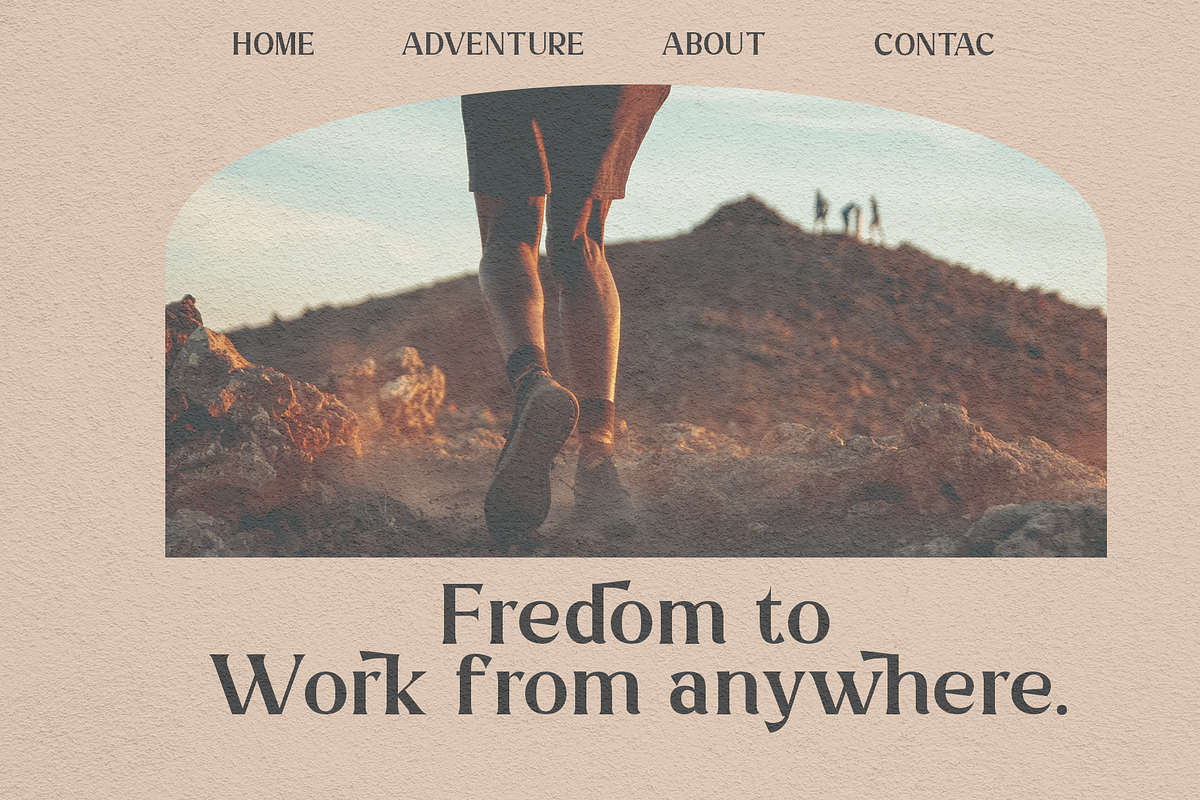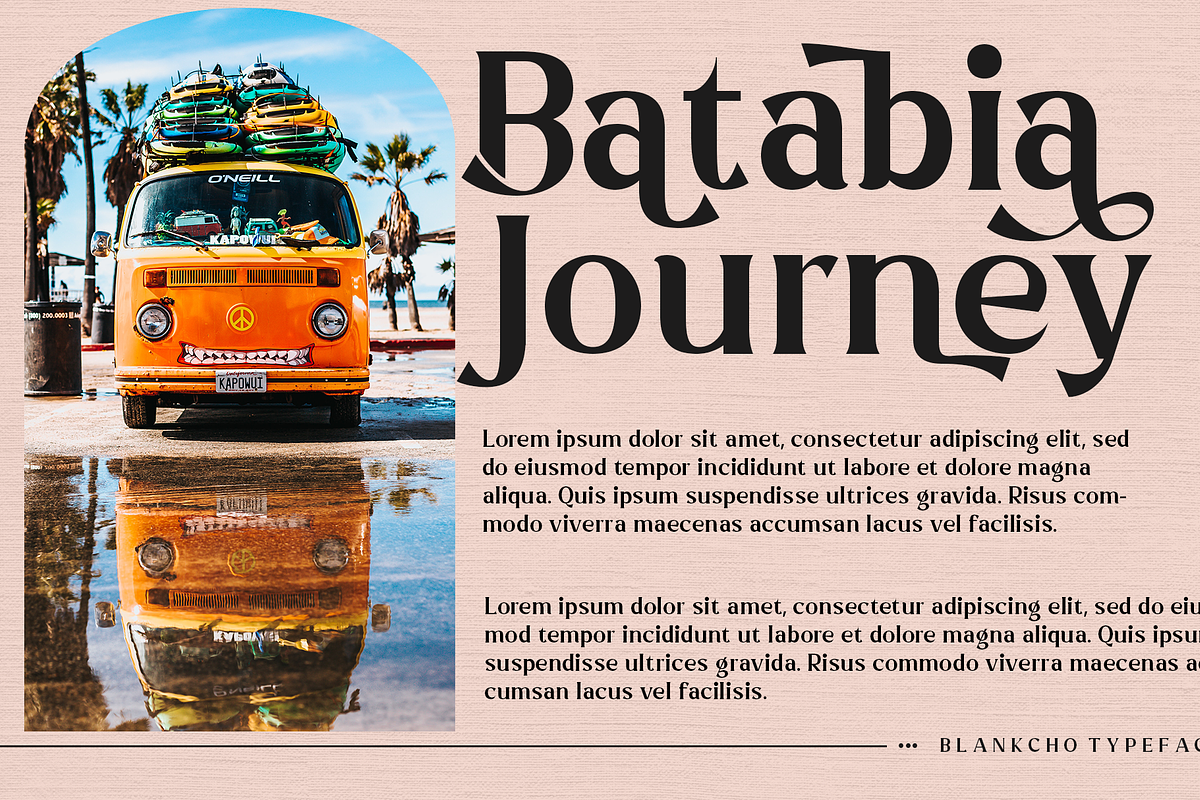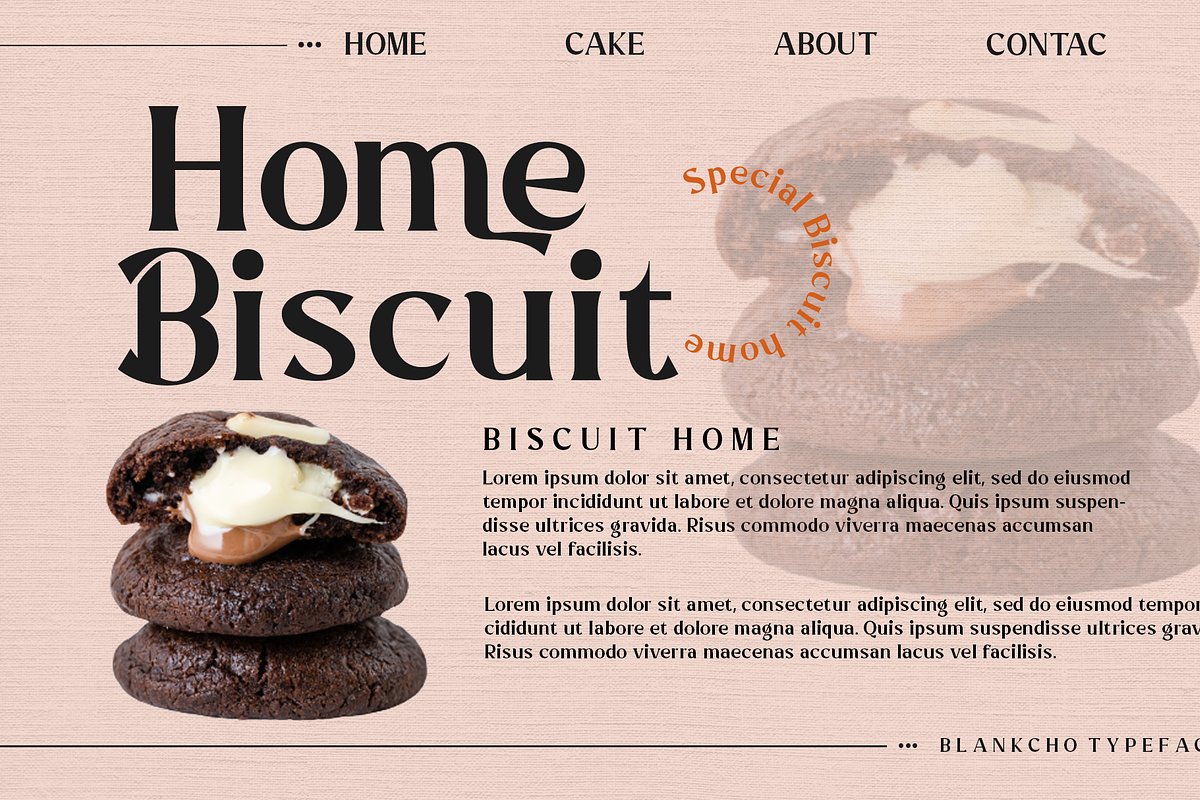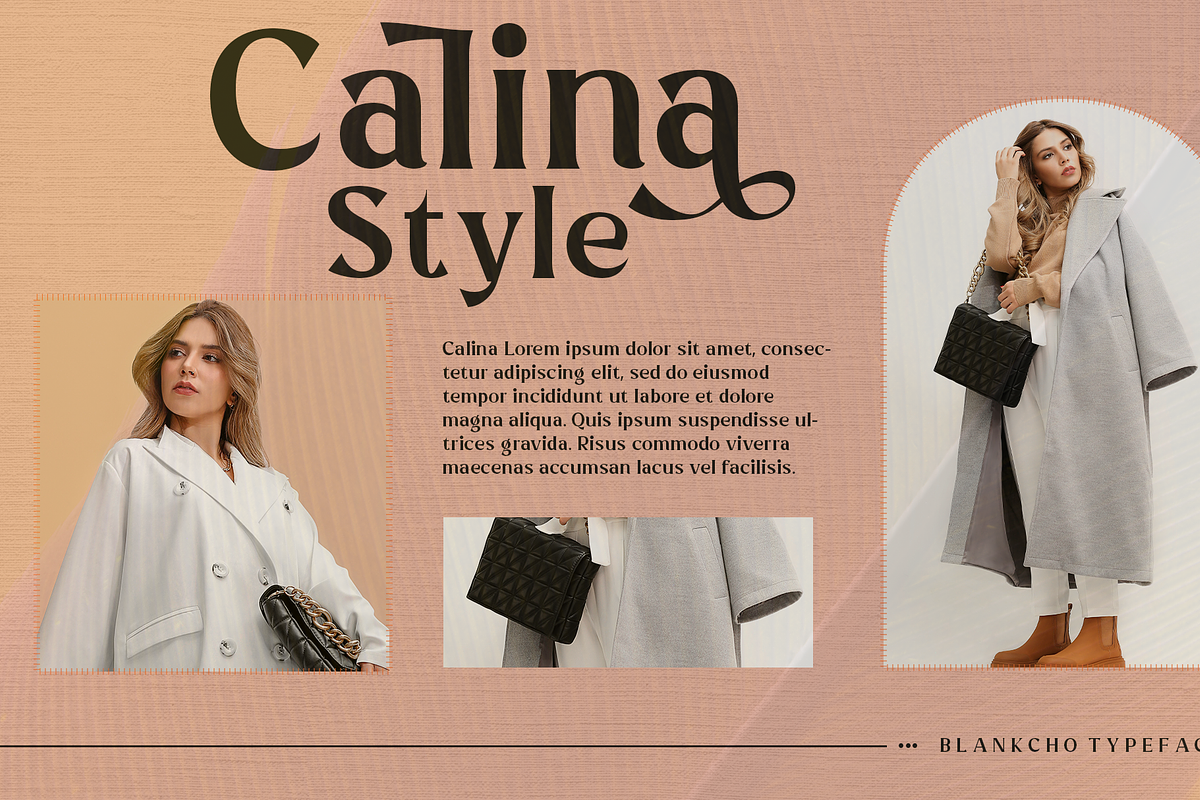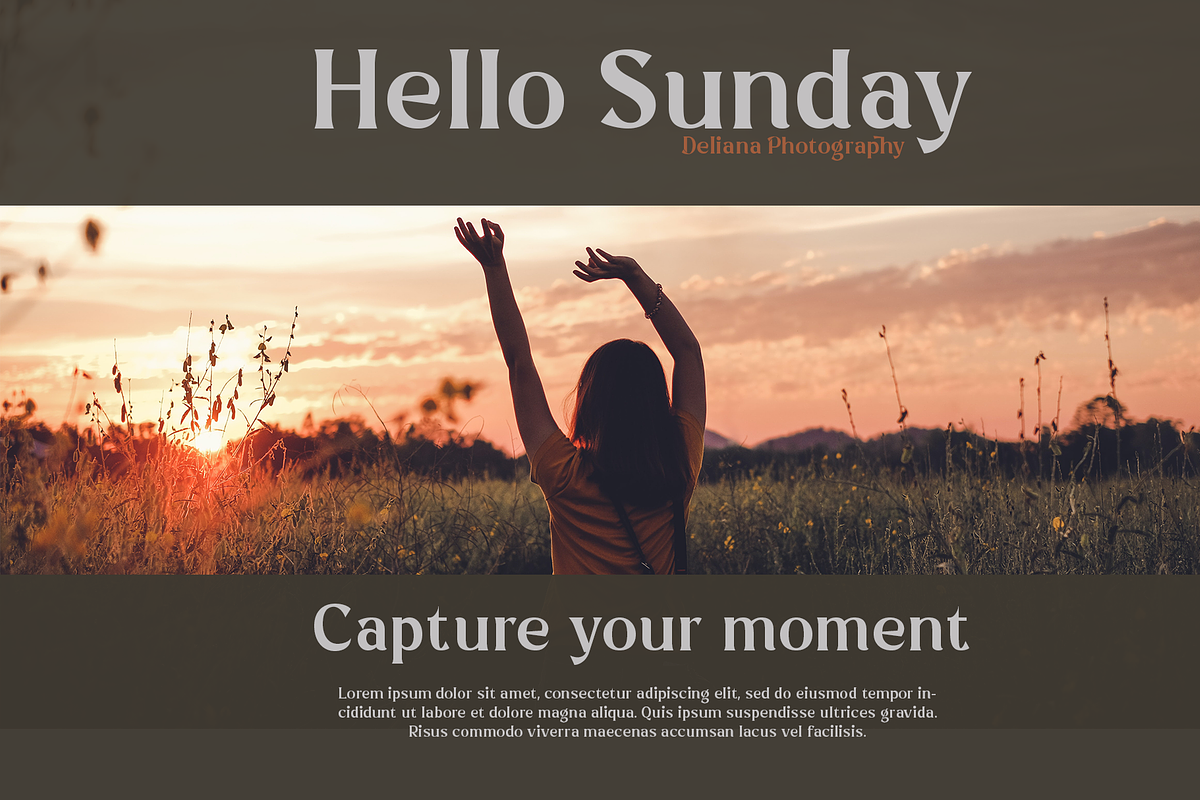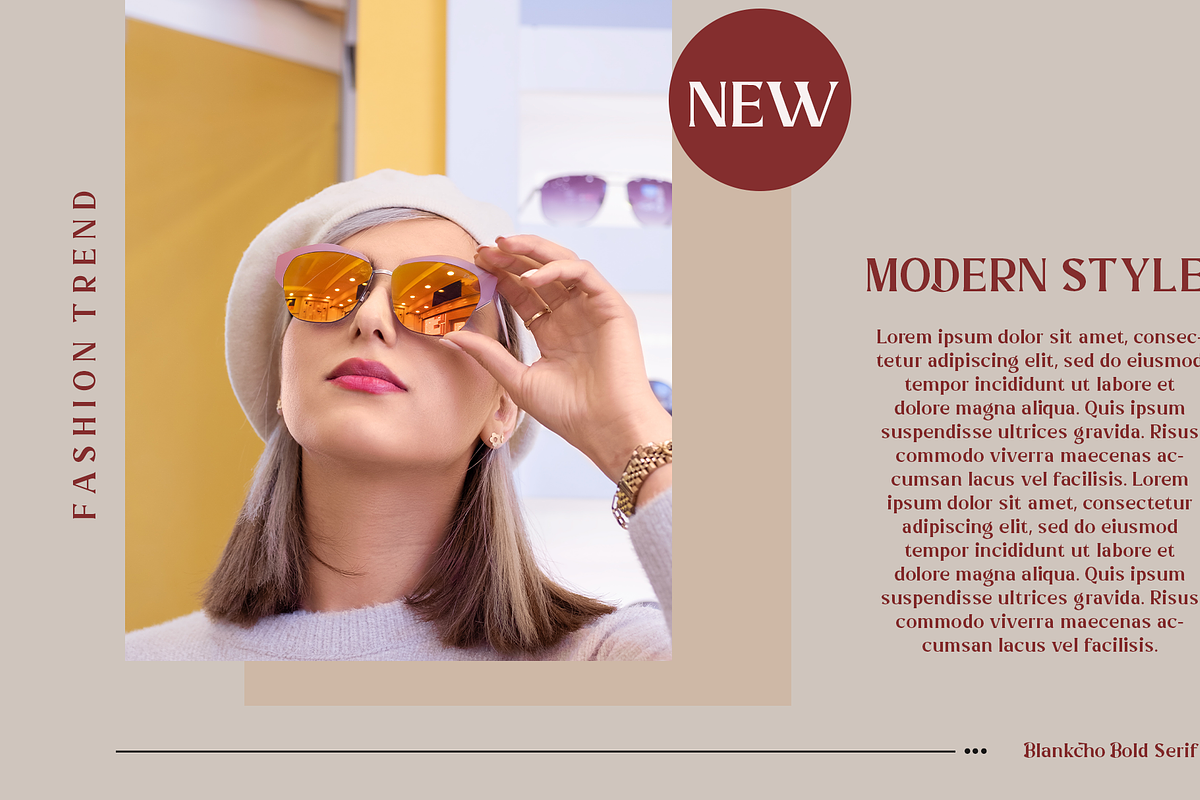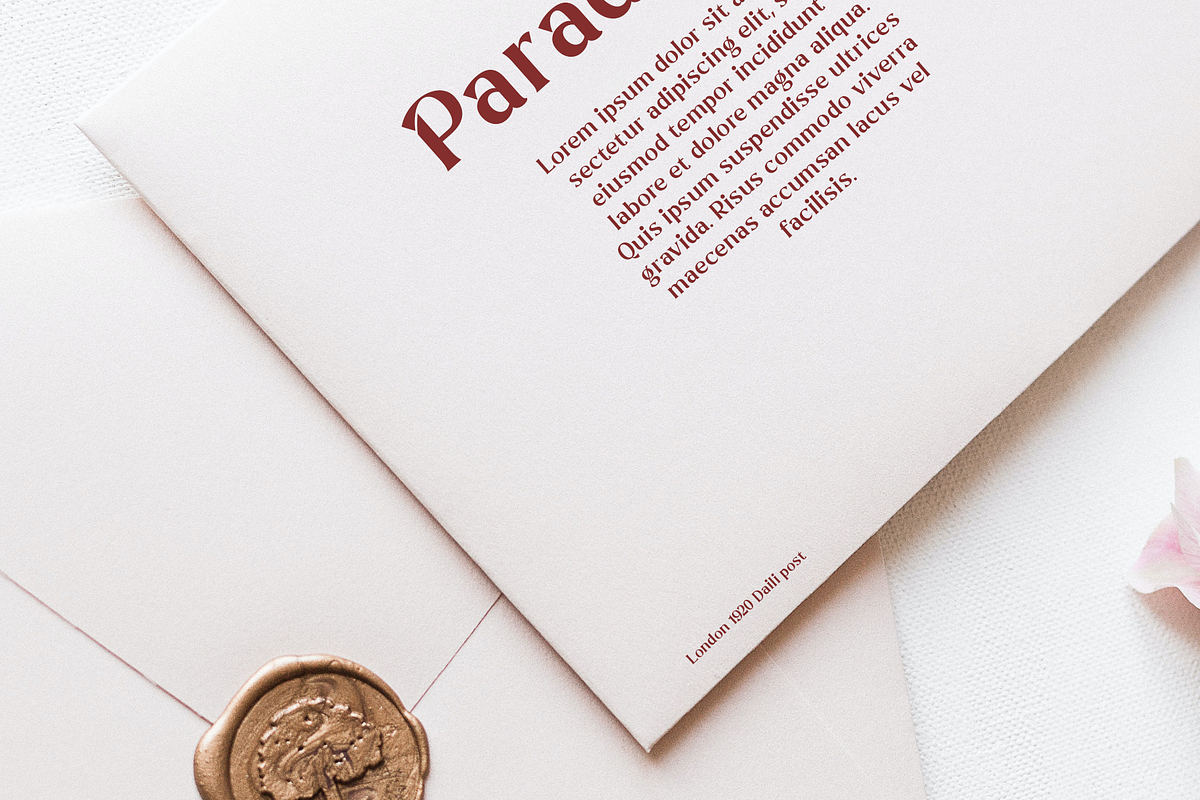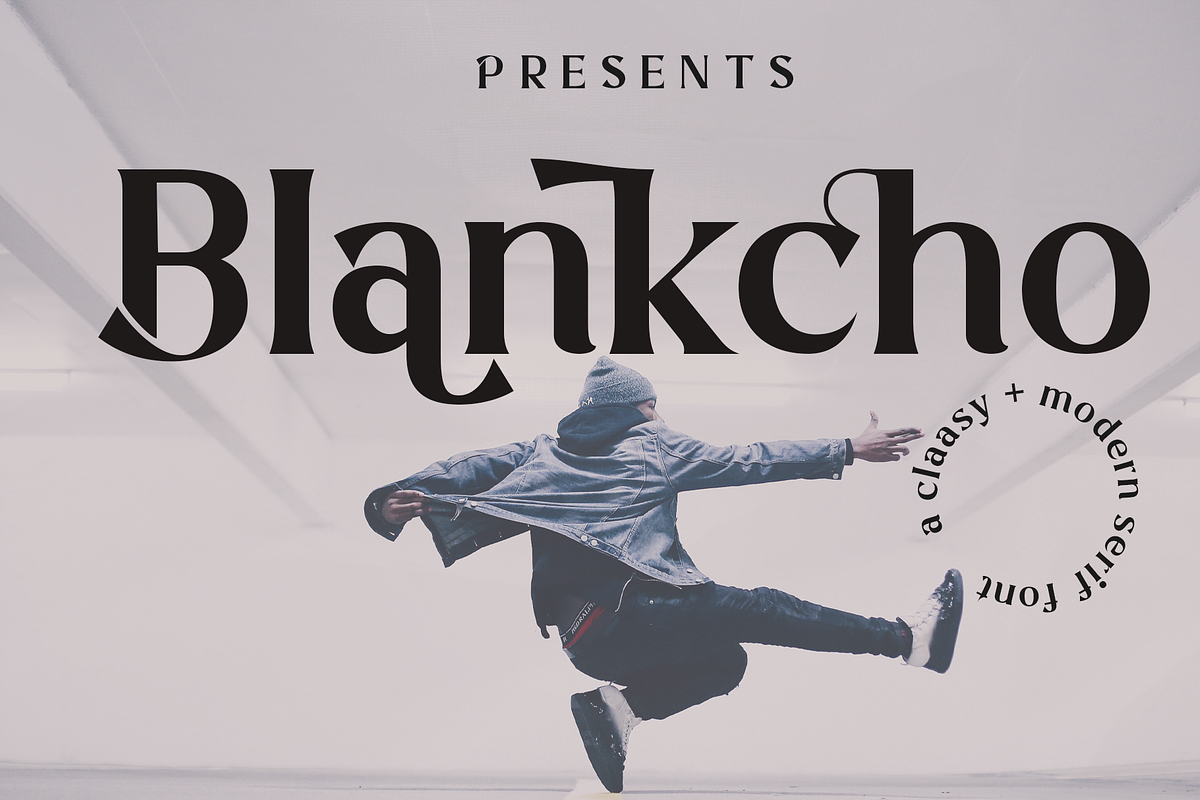
Blankcho |Bold Serif
Blankcho, There’s beauty in the plain version Blankcho, even without all the extras, for a clean and elegant minimal serif. Any version of Blankcho brings a touch of luxury and bespoke custom typography to modern logos, websites, social media quotes, wedding branding, and more.